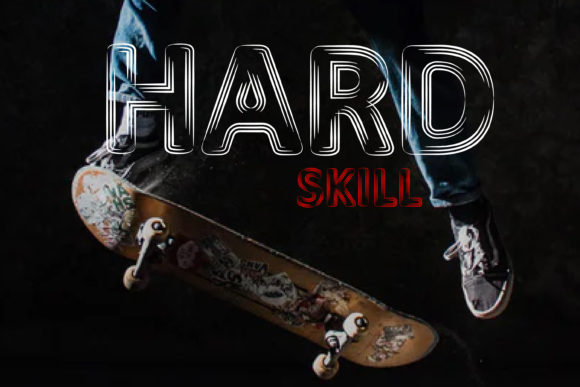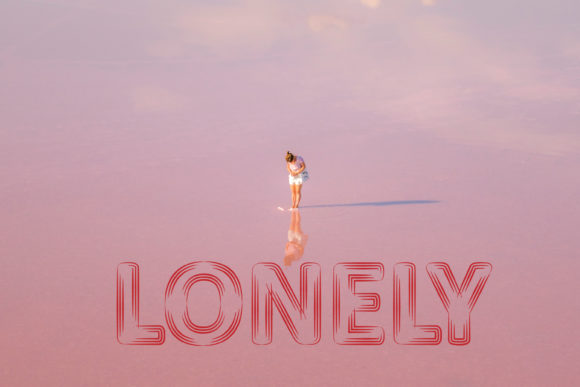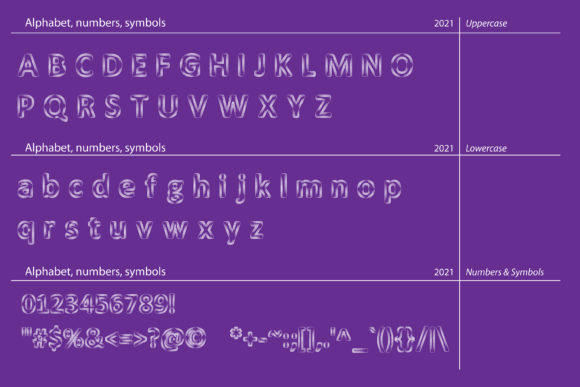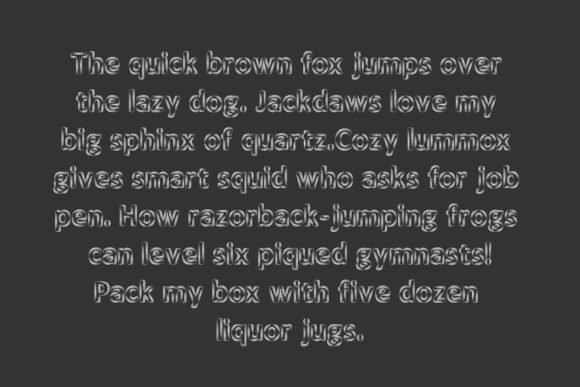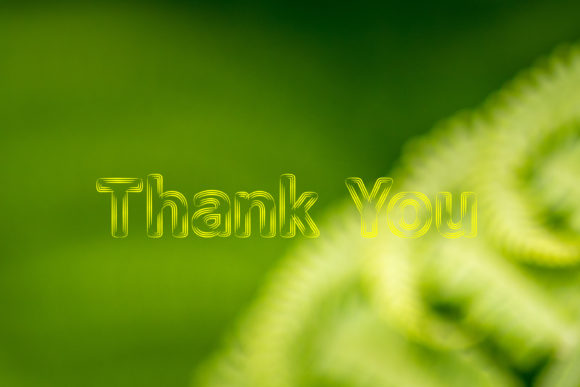
Unlock the Power of Creativity with Dheline Font
Have you ever stared at a blank canvas, feeling the pressure of a looming deadline, and suddenly, a spark of inspiration hits? You envision a bold headline, a vibrant title, or a striking logo that captures the essence of your design. That’s where the magic of Dheline Font comes in – a cool and uniquely designed display font that will breathe life into your creations.
Dheline Font is more than just a font; it’s a tool that empowers designers to push boundaries and explore new possibilities. Its versatility and sleek aesthetic make it an invaluable asset for any design project, from marketing campaigns to artistic expressions. With Dheline Font, you’ll discover a world of creative freedom, allowing you to craft visually stunning pieces that leave a lasting impression.
Dheline Font Key Features
- Font Family: Dheline is a modern sans-serif font family designed for digital use.
- Resolution: Optimized for high-resolution displays (Retina, 4K, etc.) with a resolution of up to 300 DPI.
- Font Sizes: Available in 6 font weights (Thin, Light, Regular, Medium, Bold, Black) and 3 font styles (Regular, Italic, Bold Italic).
- Unique Characteristics: Dheline features a clean, minimalist design with a subtle x-height and a high x-height axis, making it suitable for both body text and headlines.
Deline Font Review
I recently had the chance to work with the Deline font, and I have to say it’s been an interesting experience. Here’s my honest take on it.
- Unique aesthetic: Deline has a distinct, modern look that’s sure to stand out in your designs. Its quirky lines and shapes add a touch of personality to any project.
- High legibility: Despite its unconventional design, Deline is surprisingly easy to read, making it a great choice for body text or headlines.
- Great for creative projects: If you’re working on a design that needs a bit of edge, Deline is an excellent choice. Its bold lines and quirky feel will add a touch of creativity to your work.
- May not be suitable for formal projects: While Deline is perfect for creative projects, it may not be the best choice for more formal or traditional designs.
- May be difficult to pair: Deline’s unique design can make it tricky to pair with other fonts, so you may need to experiment with different combinations to find one that works.
- Not ideal for small text: Due to its bold lines and quirky feel, Deline may not be the best choice for small text or fine typography.
Overall, I think Deline is a great font for designers who want to add a bit of creativity to their work. While it may have some limitations, its unique aesthetic and high legibility make it a great choice for the right projects.
Tips for Getting the Most Out of Deline Font
For optimal results, use the Deline Font in conjunction with a clean and simple design aesthetic. Avoid using it with too many bold or italic styles, as it can become overwhelming.
The Deline Font is ideal for use in branding materials, such as logos, business cards, and letterheads. It can also be used in digital media, such as social media graphics and website headers.
Alternatives to Dheline Font
Montserrat is a sans-serif font designed by Julieta Ulanovsky. It’s a popular choice for digital interfaces and is often used for headings and titles. Montserrat is more geometric and modern than Dheline Font, making it suitable for contemporary designs. It’s a great choice when you need a clean and minimalist font for your digital product.
Open Sans is a modern sans-serif font designed by Steve Matteson. It’s highly legible and suitable for both digital and print media. Compared to Dheline Font, Open Sans is more neutral and doesn’t have the same level of flair. It’s a great choice when you need a clean and simple font for body text or headings.
Lato is a sans-serif font designed by Łukasz Dziedzic. It’s a highly legible font with a friendly and approachable feel. Compared to Dheline Font, Lato is more rounded and has a softer feel. It’s a great choice when you need a font that’s easy to read and has a warm, inviting tone.
Merriweather is a serif font designed by Eben Sorkin. It’s a classic font with a timeless feel and is often used for print media. Compared to Dheline Font, Merriweather is more traditional and formal. It’s a great choice when you need a font that conveys a sense of sophistication and elegance.